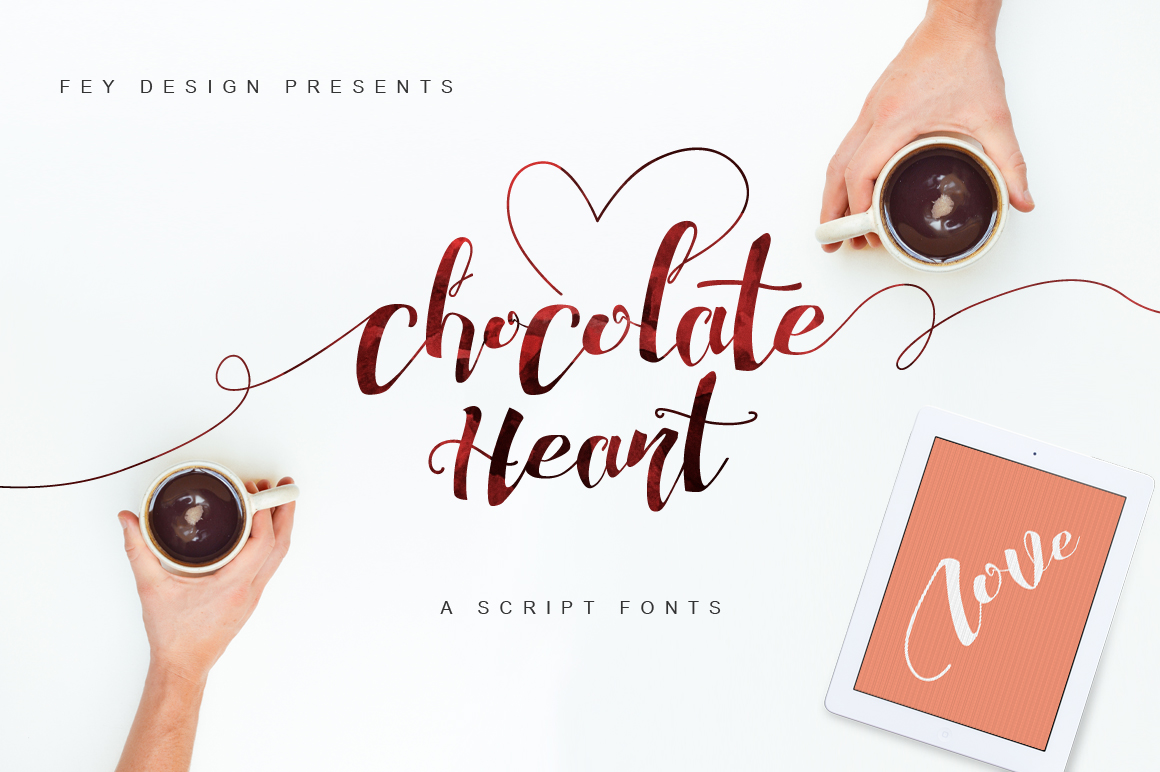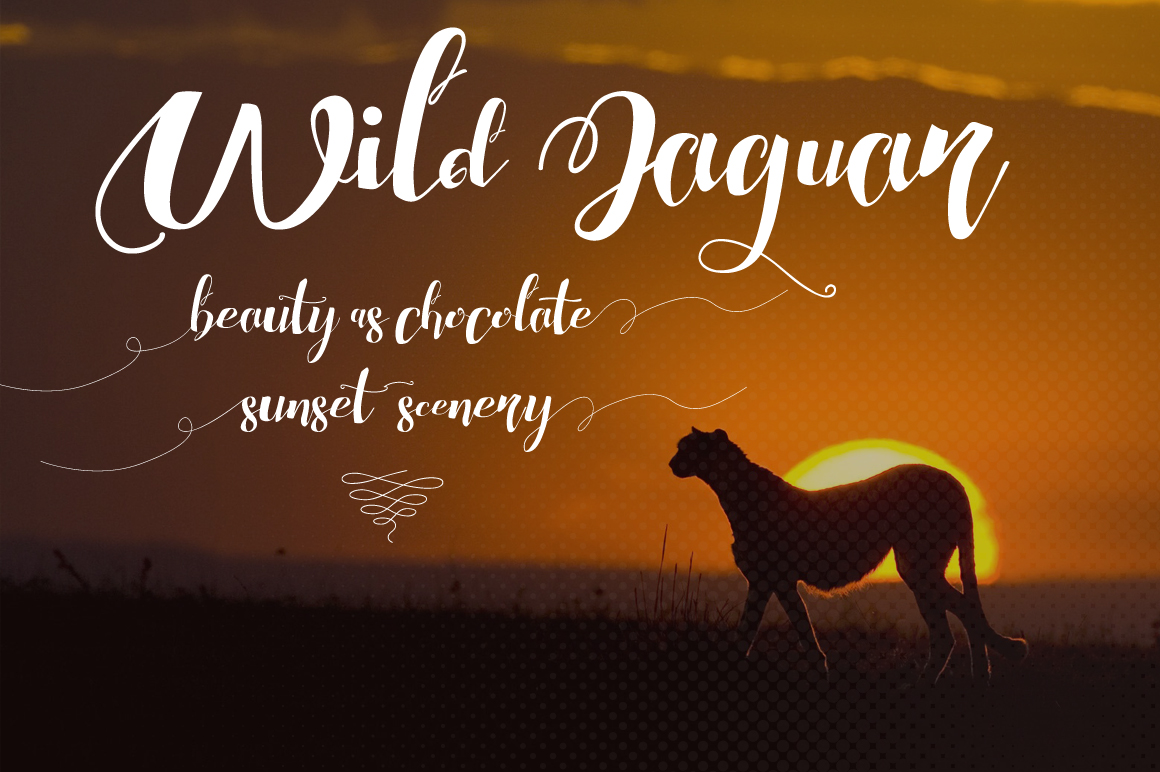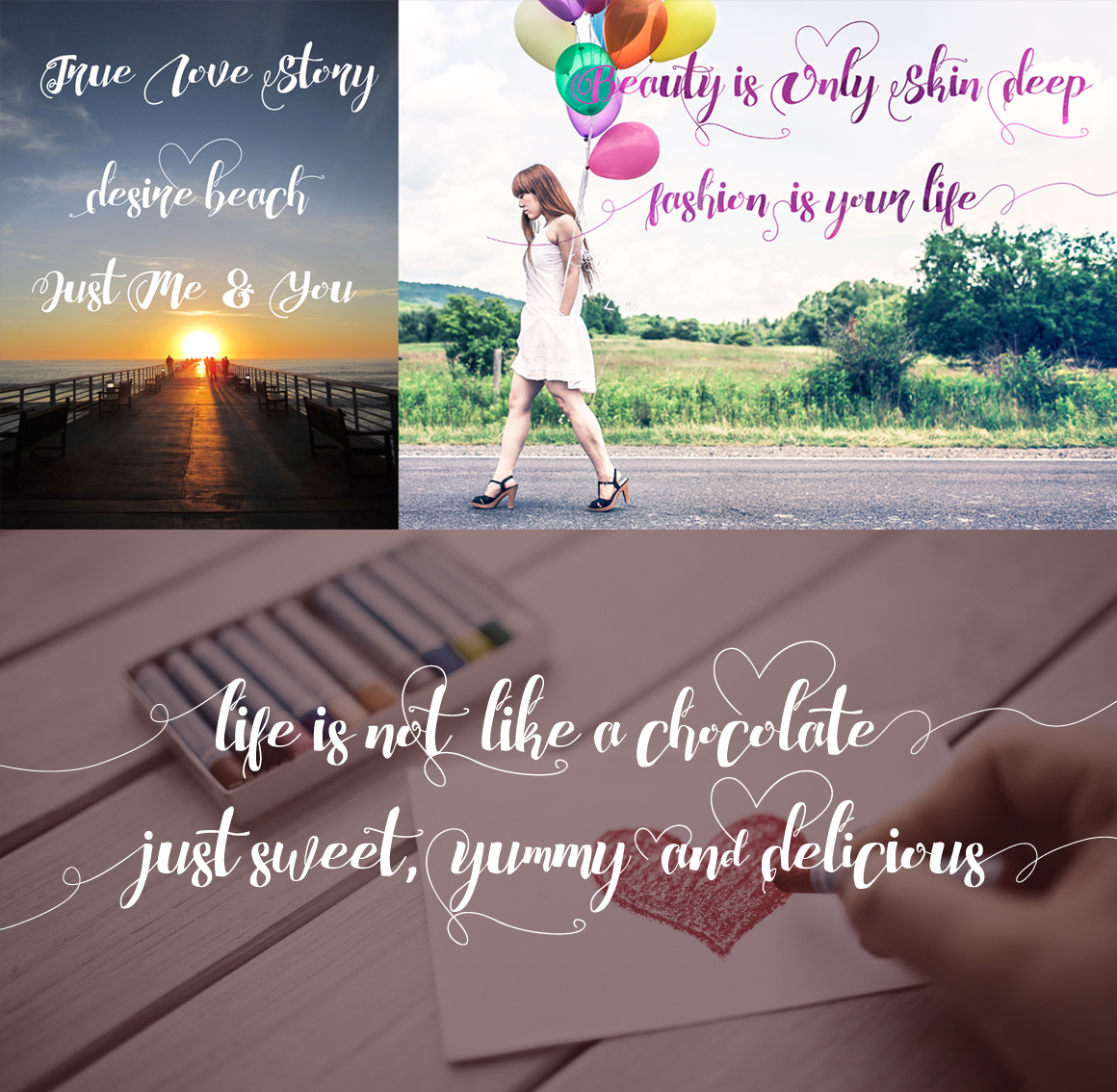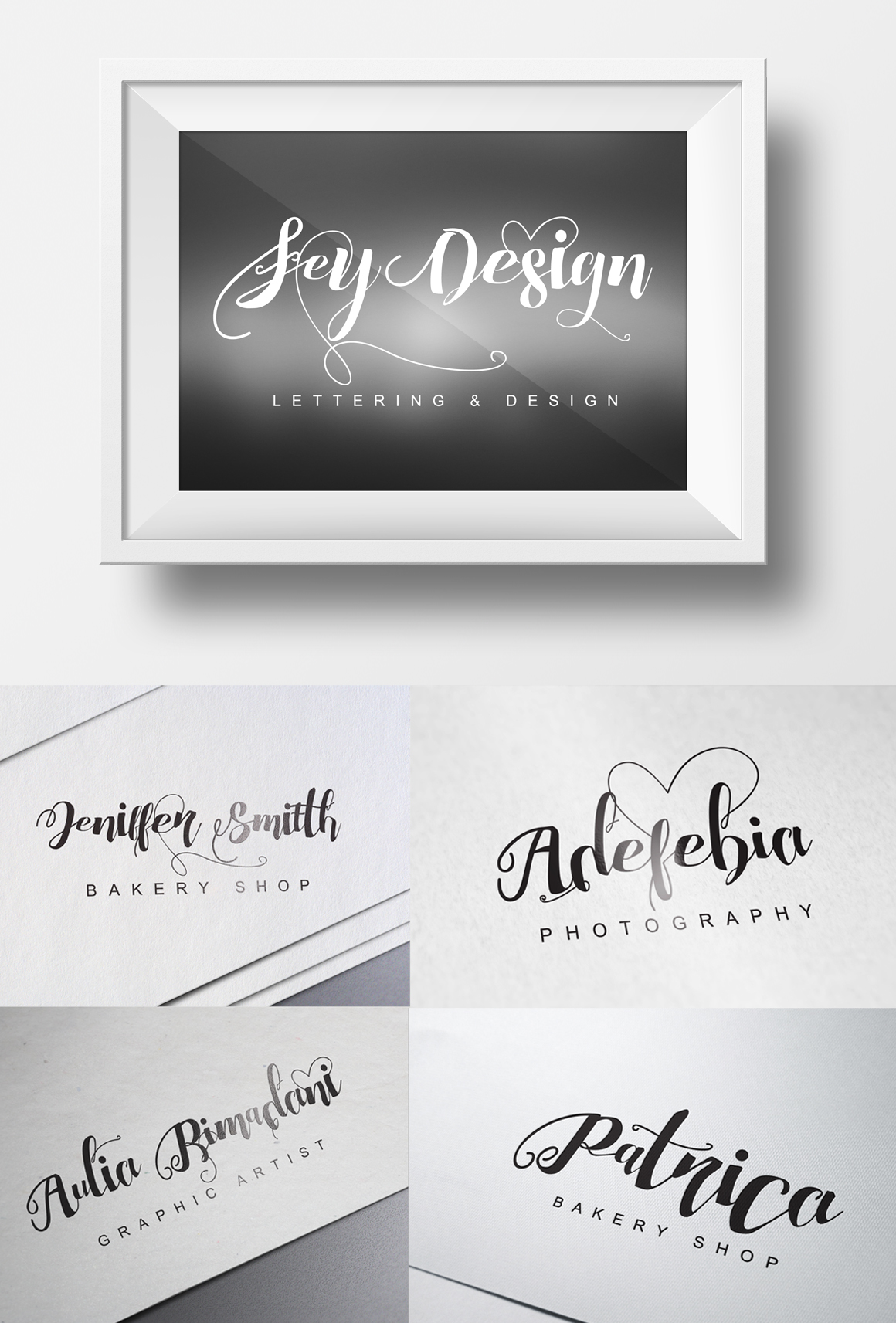
HomeScript FontsChocolate Heart Font Script Fonts Chocolate Heart Font FacebookXPinterestWhatsApp Chocolate Heart Font Poster 2 Chocolate Heart Font Poster 3 Chocolate Heart Font Poster 4 Chocolate Heart Font Poster 5 About Chocolate Heart Font Chocolate Heart is a stylish calligraphy font. It’s great for romantic orientated designers. DOWNLOAD NOW People also explored Plavlova Butter Font Hayasaka Font Romantic Hanimun Font Miss Winn Berthany Font Bumpinks Font Michaello Font Top Average Font Alumatica Font 296 0 TagsChocolate Heart Font Previous articleChristina Allie FontNext articleK26 Castle Rose Font LEAVE A REPLY Cancel reply Comment: Please enter your comment! Name:* Please enter your name here Email:* You have entered an incorrect email address! Please enter your email address here Website: Save my name, email, and website in this browser for the next time I comment. Personal Use Free Makeba Font Personal Use Free Read more about this font Baveuse Personal Use Free Read more about this font Party Pooper Personal Use Free Read more about this font Einstaint Personal Use Free Read more about this font BLOG Best Fonts for T-Shirt Design – Top 2025 Picks In 2025, t-shirt design has become more than just fashion—it's a form of self-expression. Whether you're... Top 7 Google Fonts Alternatives for Faster and Privacy-Friendly Web Design (2025) 5 Fonts That Will Dominate Design Trends in 2026 Exploring Font Trends